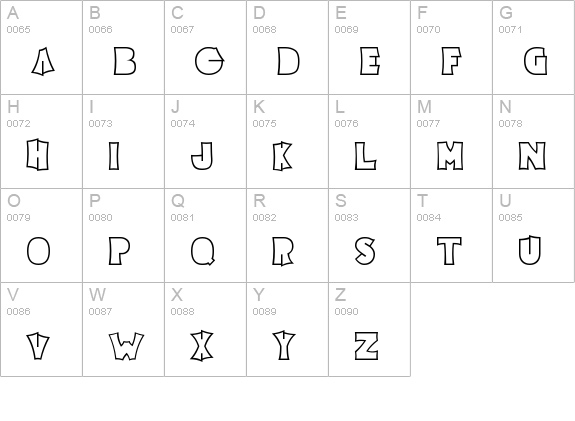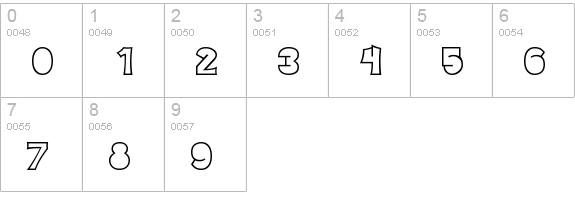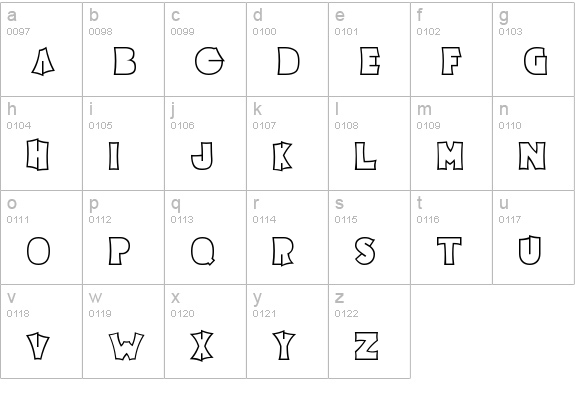
Electric Pickle Font Details
Electric Pickle font is a vibrant and playful typeface that radiates energy and creativity. With its unique design and electric color palette, this font is perfect for projects that need a bold and dynamic touch. Whether you're creating posters, logos, or branding materials, Electric Pickle font will surely make your work stand out. The best part about Electric Pickle font is that it is available for free download at FontsMarket.com. You can easily access this eye-catching font and use it in your projects without any cost. Don't miss out on the opportunity to add a spark of electricity to your designs with Electric Pickle font!